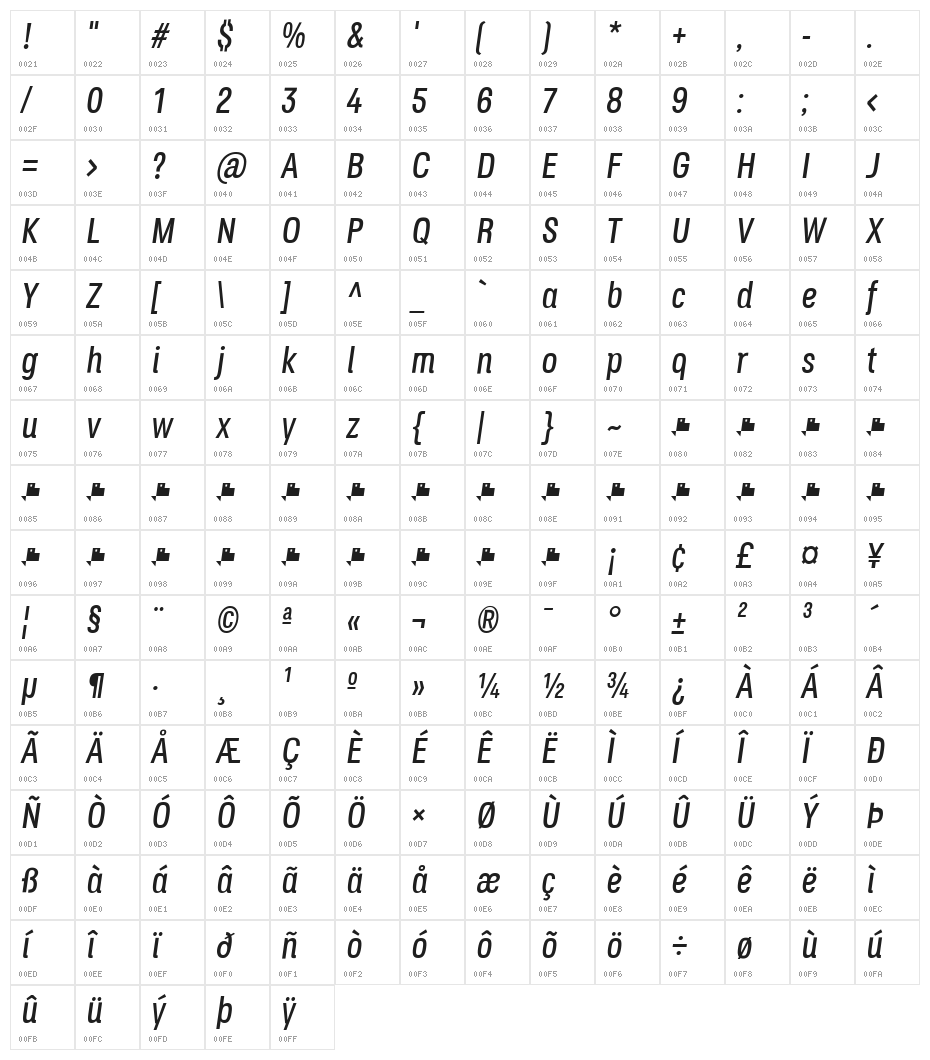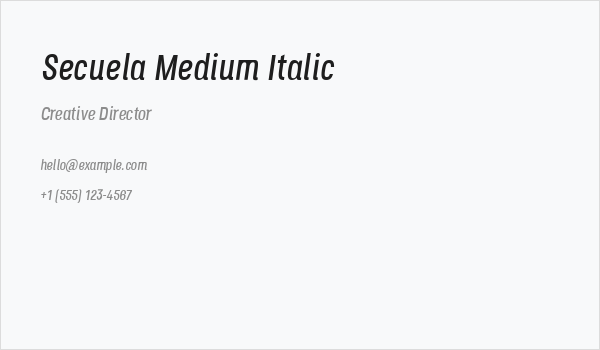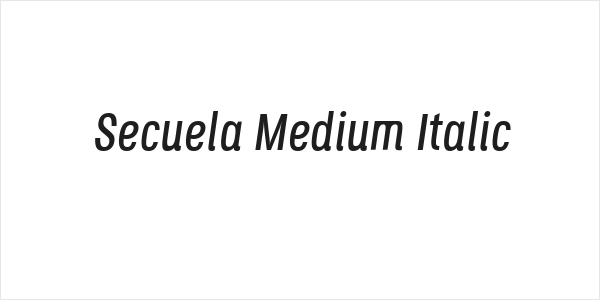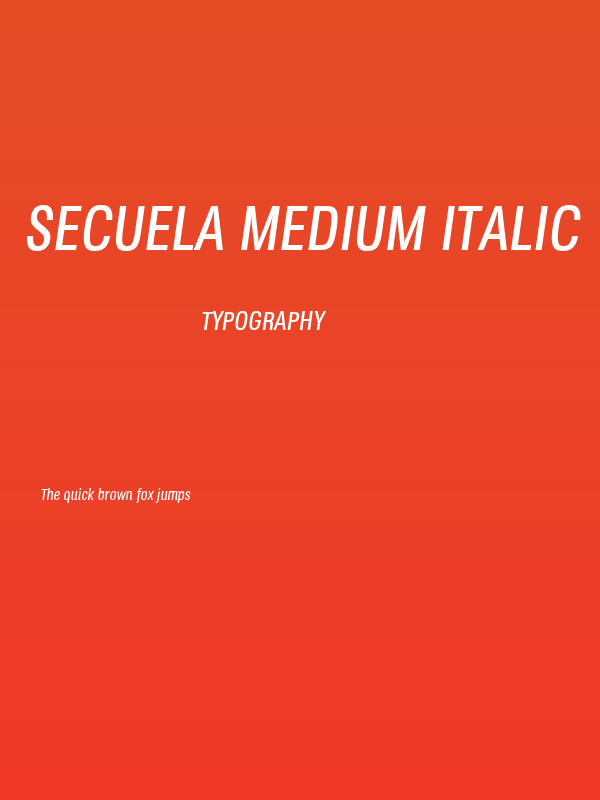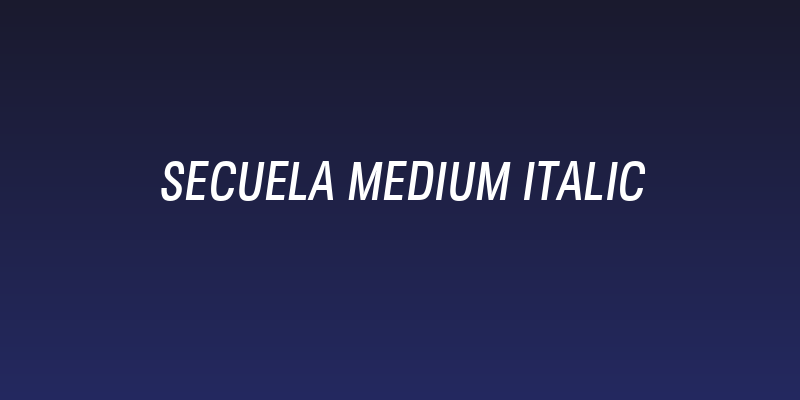
Secuela Medium Italic Font
Secuela Medium Italic Description
This font features a sleek and modern design with a slight italic slant, giving it a dynamic and forward-moving appearance. The characters are clean and well-defined, with a consistent stroke width that maintains readability across various sizes. The uppercase letters are bold and commanding, while the lowercase letters are more subdued, providing a nice balance. The numerals are clear and distinct, making them suitable for both text and numerical data. Special characters are included, ensuring versatility for different types of content. Overall, this font exudes a professional and contemporary vibe.
| Proposed Projects | Ideal for branding, advertising, and editorial design projects where a modern and professional look is desired. |